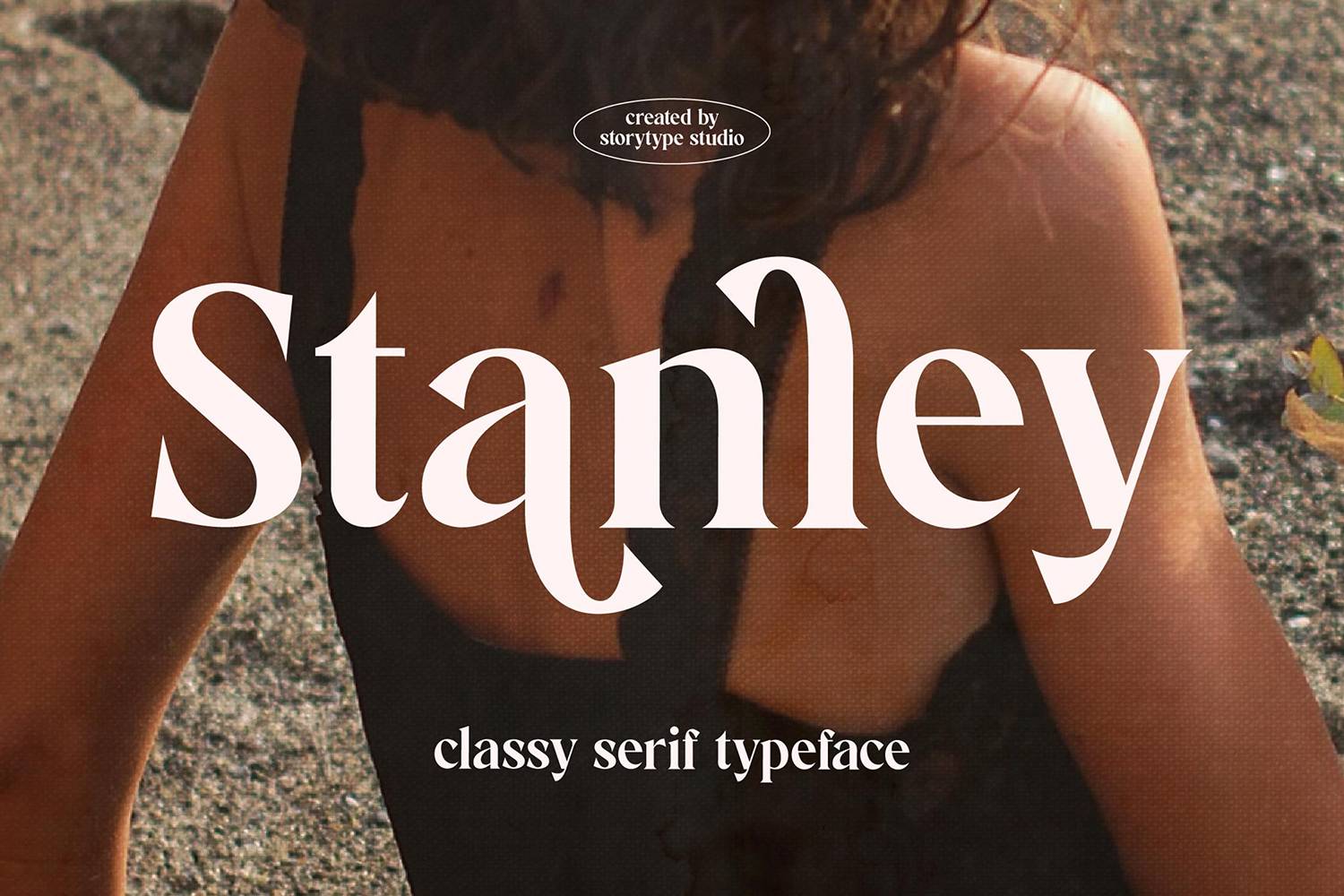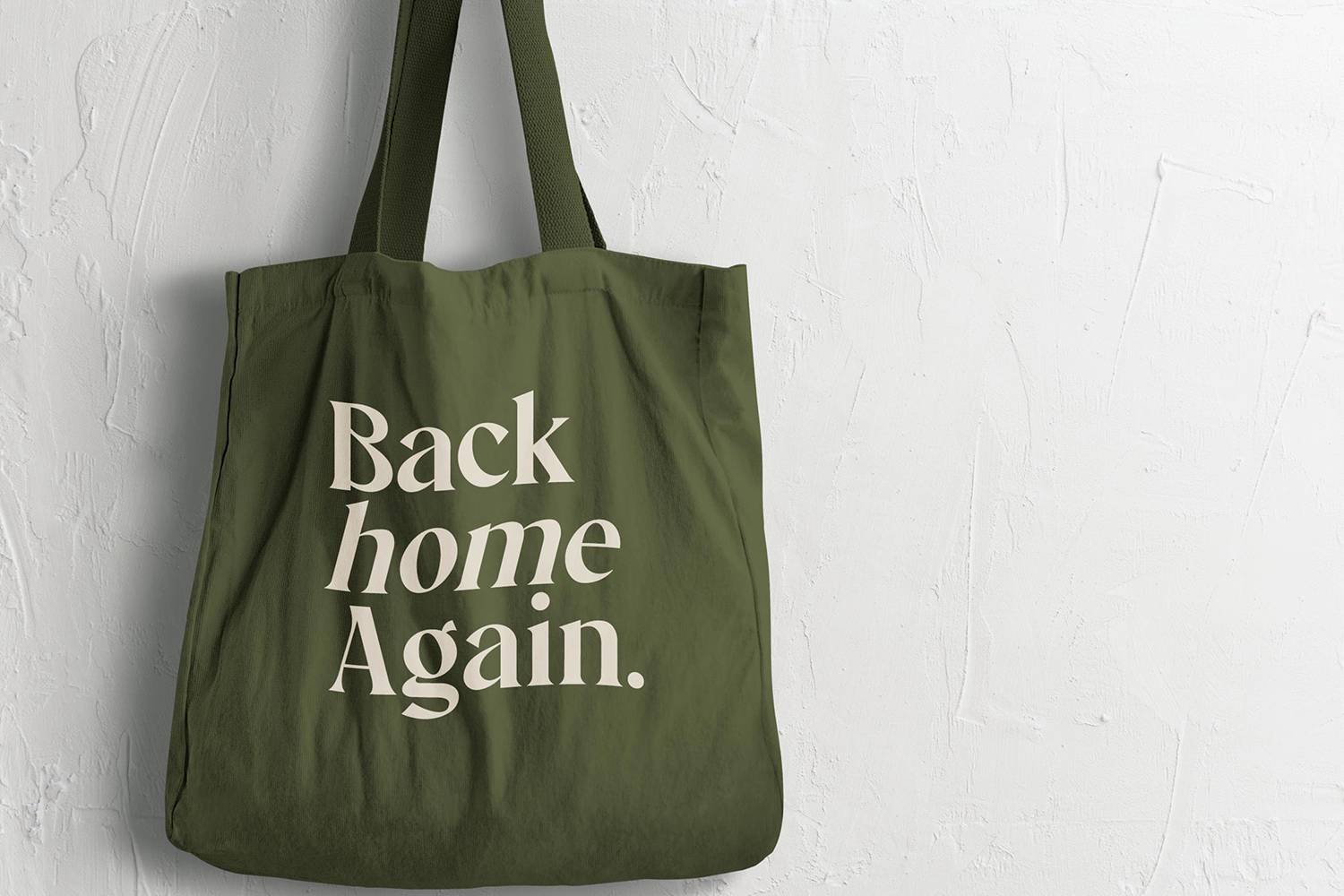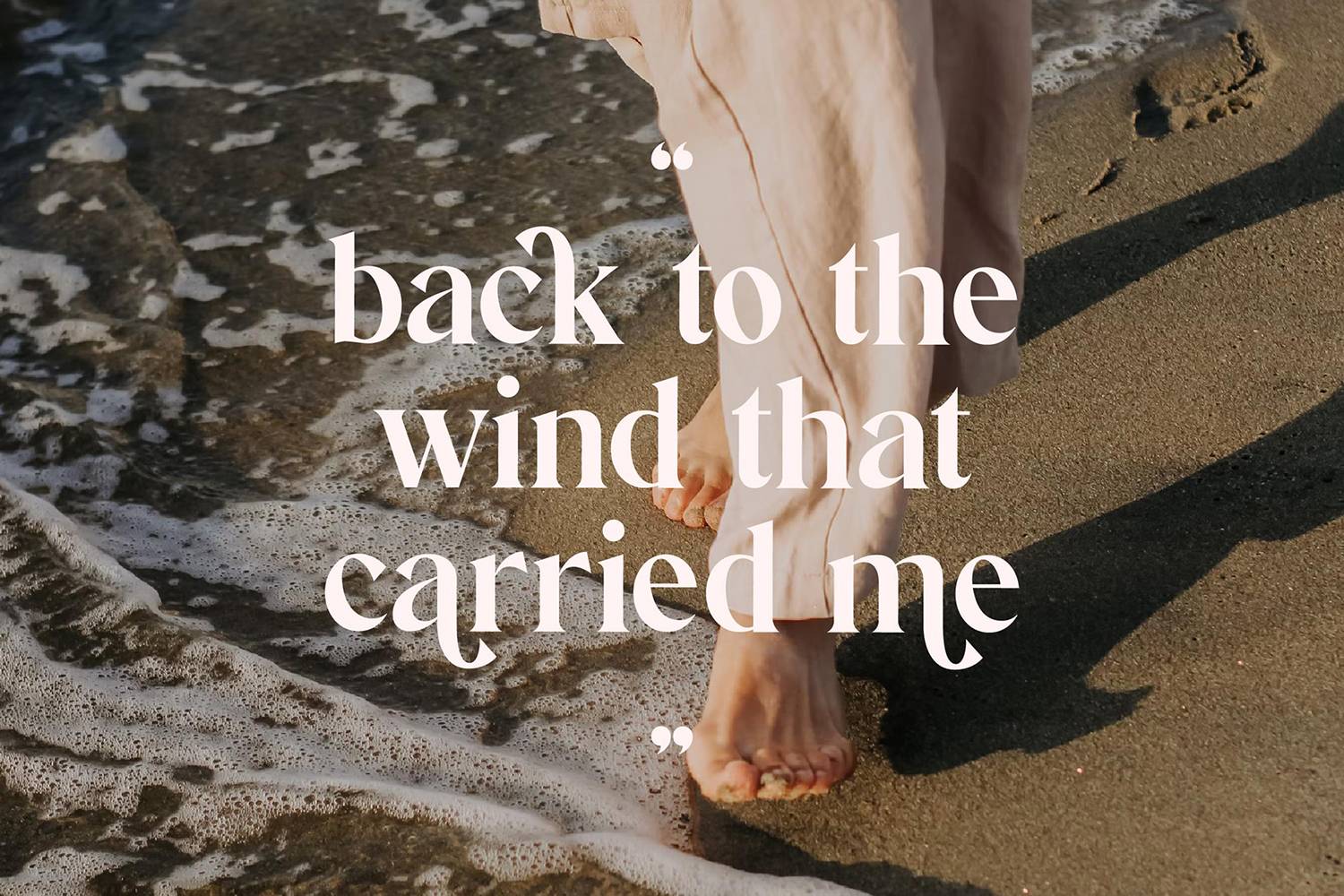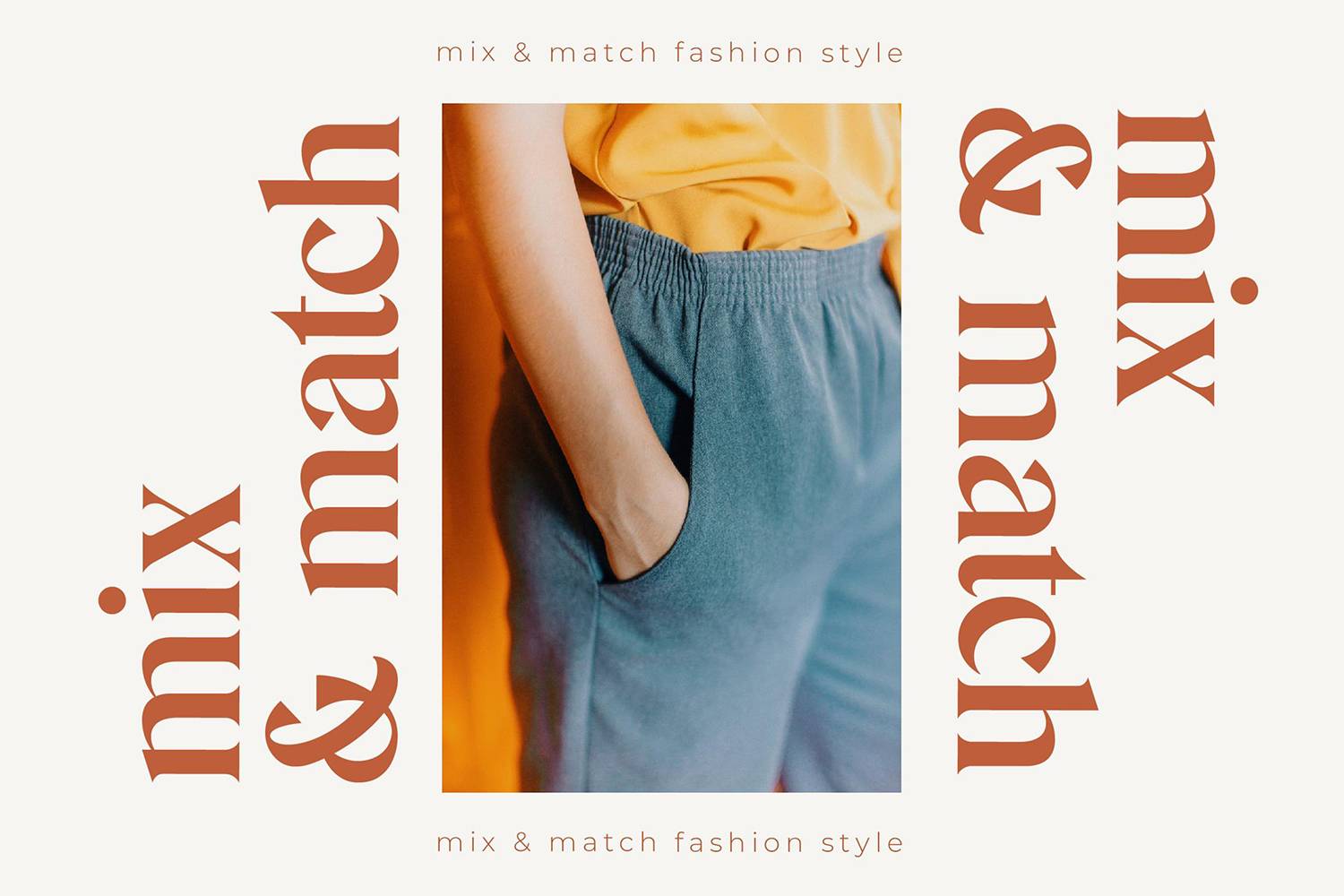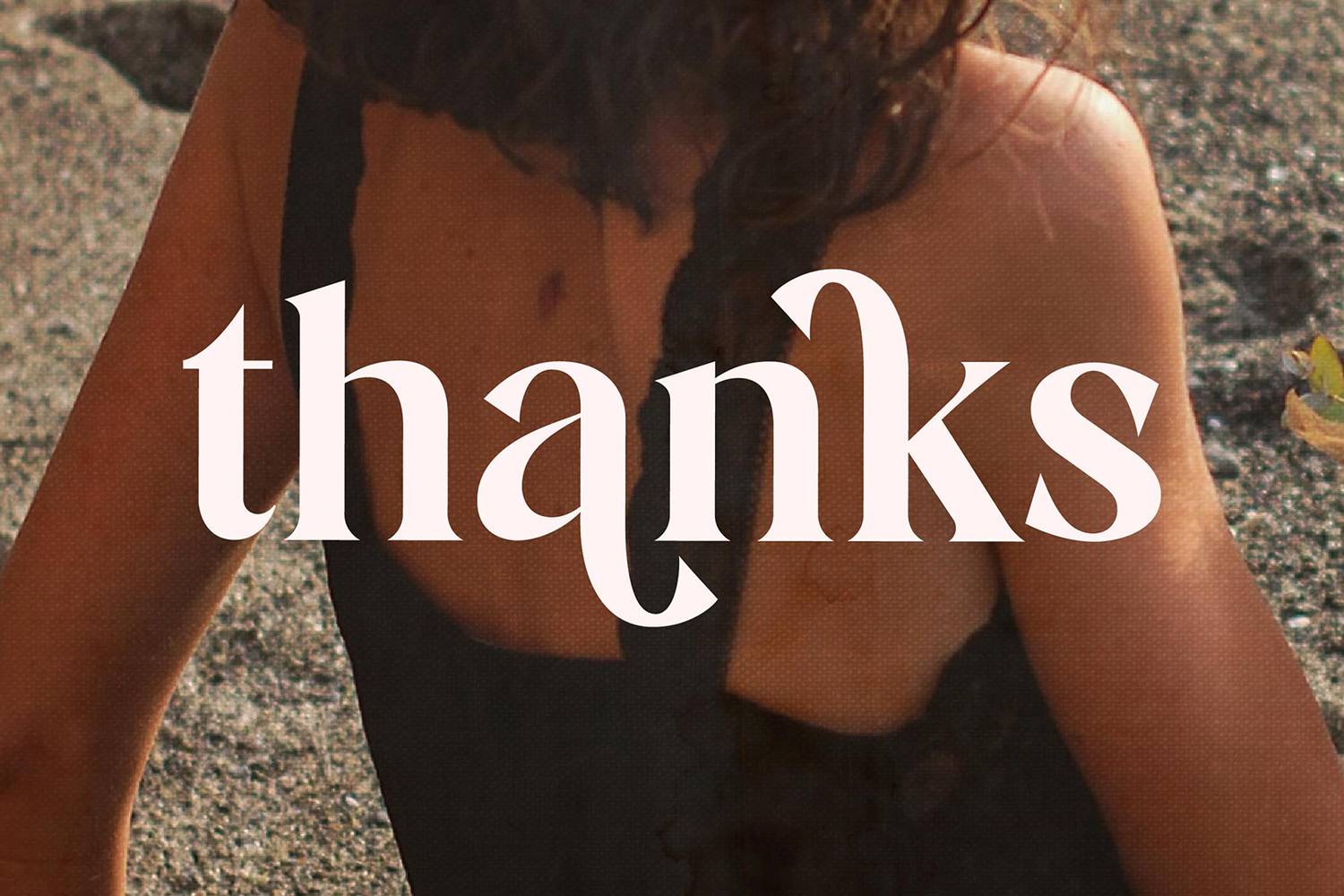
Stanley is a striking serif font with a modern Didone style, characterized by its high contrast between thick and thin strokes and sharp, elegant serifs. It features a refined yet bold look with balanced proportions and classic letterforms, making it perfect for luxury branding, editorial headlines, and sophisticated packaging where a sense of elegance and timelessness is desired.
Stanley Font
About Stanley Font